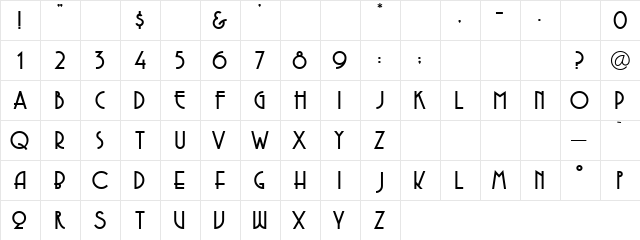
Great Ruble Regular
Design Context for Great Ruble Typeface
Great Ruble is a composed and adaptable typeface that performs quietly and consistently across a wide range of design contexts.